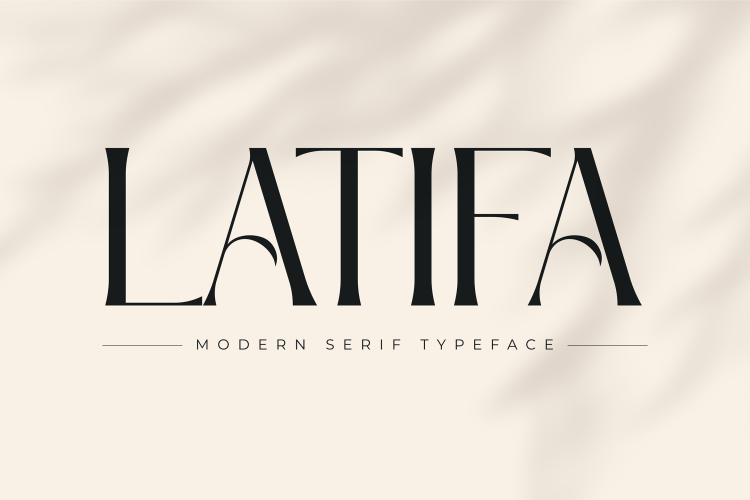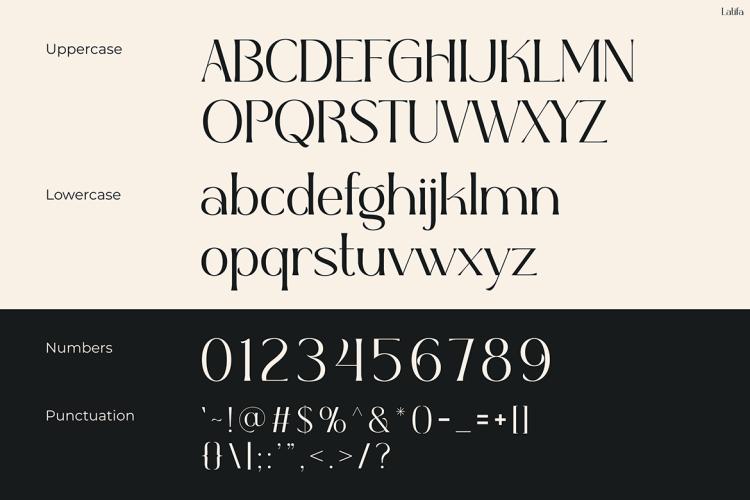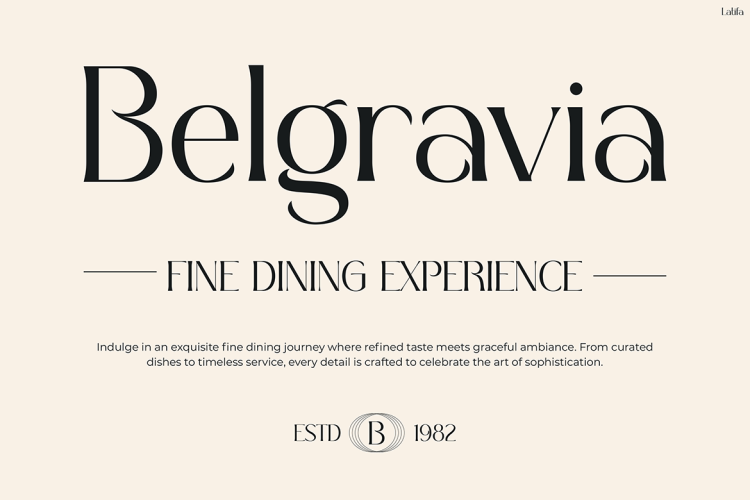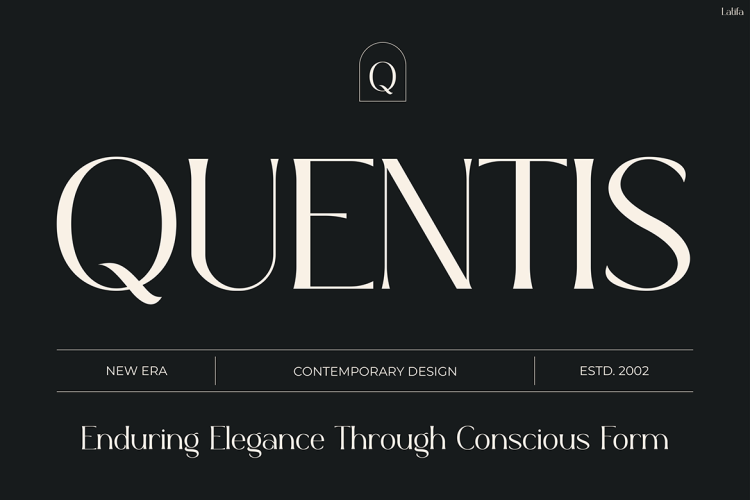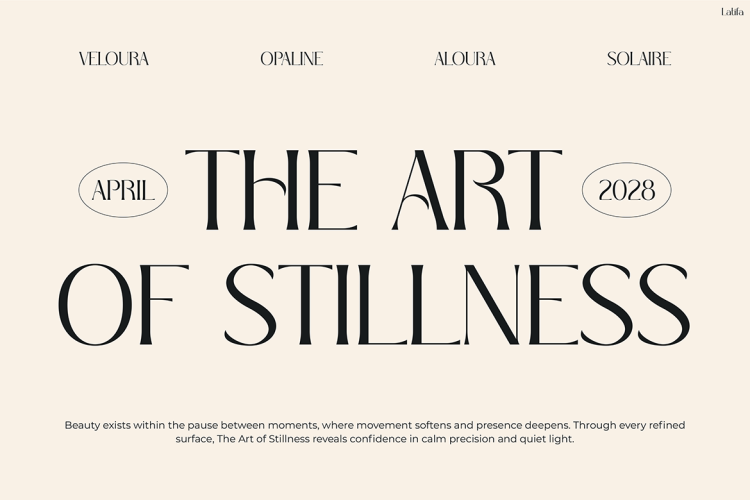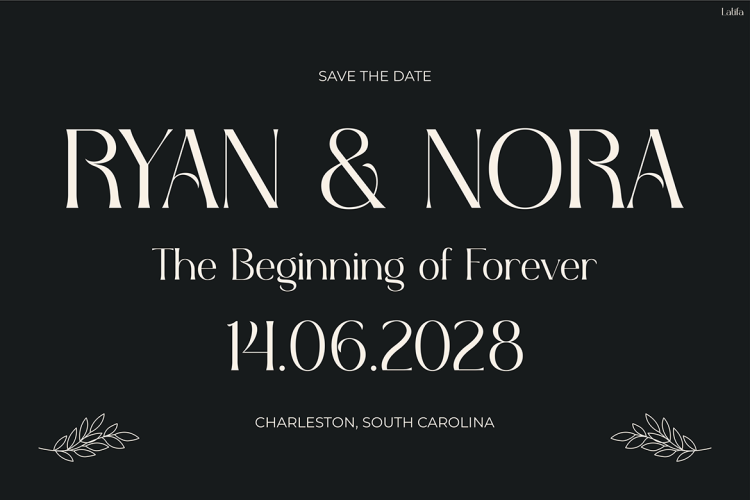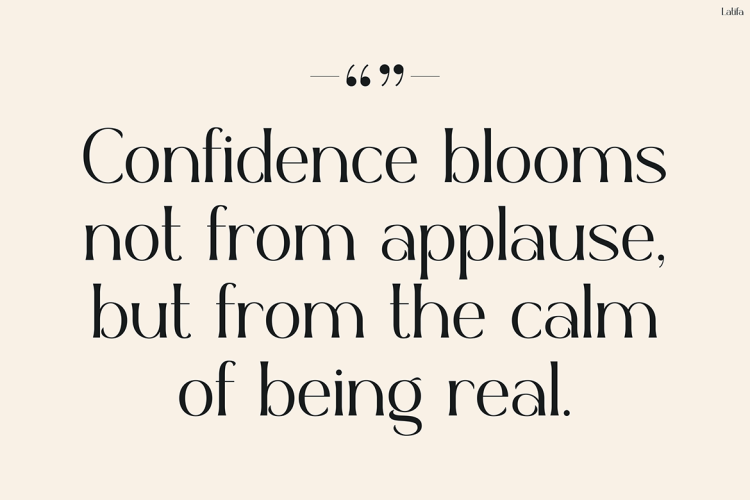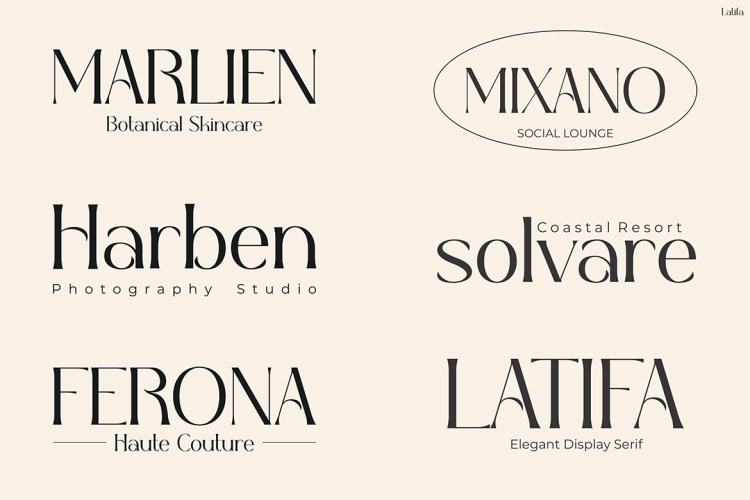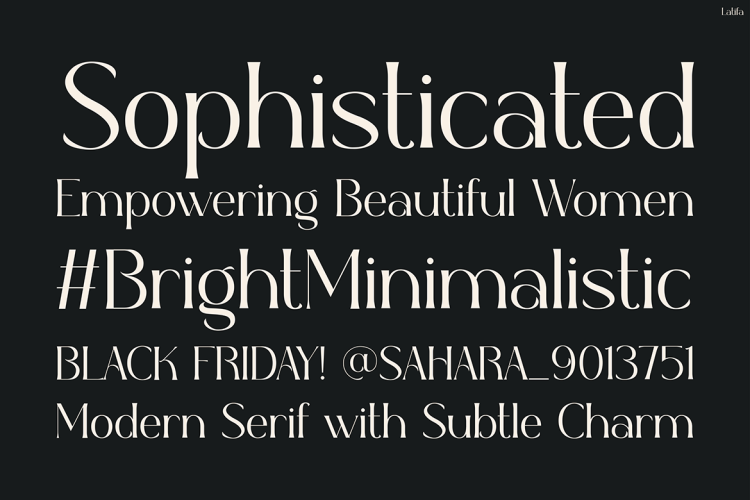
Instagram Font Latifa โ Modern Grace with Timeless Soul
Instagram Font Latifa is a modern serif that blends elegance and simplicity in perfect harmony. Each curve and stroke feels refined, while every letter flows beautifully with intention. As a result, this font transforms ordinary words into captivating visual statements. It combines classic sophistication with modern minimalism, ensuring your designs always look polished and graceful.
Moreover, Latifa brings calm energy to every project. Its balanced proportions and soft contrasts add depth without overwhelming the viewer. Whether paired with muted tones or bold backgrounds, it maintains a sense of effortless luxury. Because of this, your typography will always look professional and refined.
Above all, Latifa celebrates the beauty of simplicity. Itโs not just a fontโitโs a creative voice that adds warmth, clarity, and emotional depth to your message.
Perfect For Creators Who Dream in Style
Instagram Font Latifa is perfect for creators who appreciate thoughtful design. Whether youโre a brand designer, lifestyle influencer, photographer, or creative entrepreneur, this font helps you express your unique aesthetic with ease.
In addition, itโs ideal for logos, Instagram posts, packaging, wedding invitations, magazines, and product branding. Because of its smooth rhythm and clear legibility, Latifa ensures that your content feels cohesive and balanced. It conveys calm confidence, making every project look both modern and meaningful.
Furthermore, Latifa adapts beautifully across different media. From bold headlines to elegant captions, it creates harmony and visual consistency. In other words, it gives your brand a timeless tone that feels intentional and sophisticated.
Final Words
In short, Instagram Font Latifa is more than a typefaceโitโs a statement of style. It brings beauty, grace, and modern charm to every word you design. Whether youโre creating brand identities, curating social media, or styling invitations, this font adds lasting elegance to your work.
So, elevate your designs with confidence. Choose Latifa, and let your visuals speak with modern sophistication and timeless appeal.